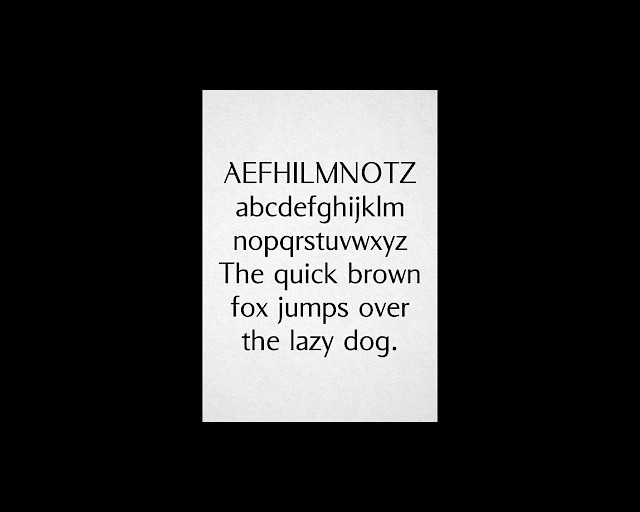
Sustain
History
ToSustain's drawings evolution over the years
ToSustain displays organic letter-shapes which intend to offer a new language in today’s dichotomized world of serif versus sans-serif fonts. Through a long process of trial and error, the font switched multiple times from « with » to « sans » serif endings, thus ending in the very unique category of « sans » typefaces. The font draws inspiration from the beautiful work of Karl Gerstner with his Gerstner Original font ( 1980 ) and Otl Aicher with his Rotis superfamily for Agfa ( 1988 ), among others. The initial aim was to propose new ways of connecting curves to stems, mainly by making the drawing asymmetrical between the inside and the outside of the stroke, as it appears in the lowercase « n ». Furthermore, letters requiring a rotation of primary shape such as the « b » and « d » exhibit a different drawing, thus remembering the structure of a serif-typeface. Composed of a regular, medium and italic, the ToSustain renders highly legible texts with unique character in both small and large sizes. Designed between 2013–2024, first released in 2016.
Opentype Features
• Access All Alternates ( aalt )
• Case-Sensitive Forms ( case )
• Glyph Composition / Decomposition ( ccmp )
• Lining Figures ( lnum )
• Localized Forms ( locl )
• Oldstyle Figures ( onum )
• Ordinals ( ordn )
• Proportional Figures ( pnum )
• Stylistic Set 1 ( ss01 )
• Stylistic Set 2 ( ss02 )
• Tabular Figures ( tnum )